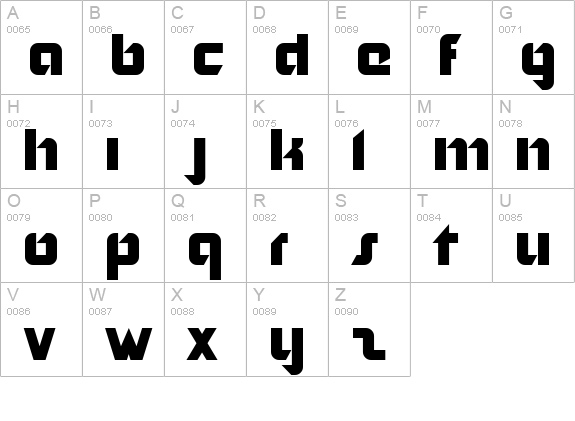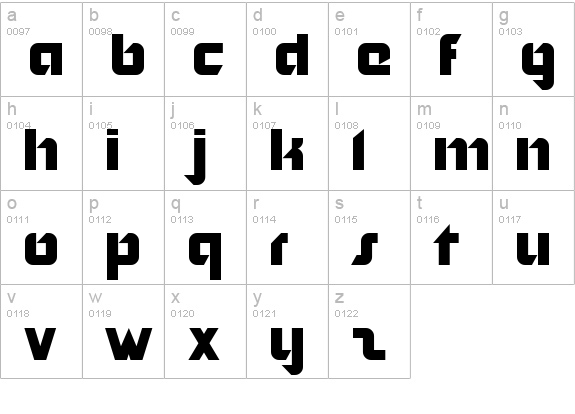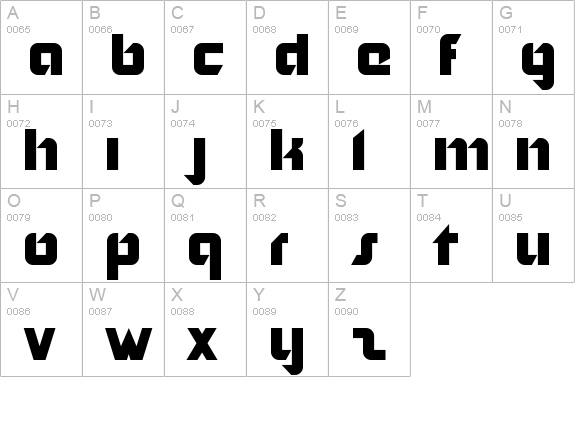
Nordic Font Details
The Nordic font is a beautifully crafted typeface inspired by the minimalist and elegant design aesthetic of Nordic countries. With its clean lines and stylish appearance, this font exudes a sense of modern sophistication and timeless charm. The Nordic font is perfect for a wide range of design projects, from branding and advertising to packaging and editorial design. Best of all, the Nordic font is available for free download at FontsMarket.com. Whether you're a professional designer looking for a versatile and high-quality font or a hobbyist seeking to add a touch of Scandinavian style to your creations, the Nordic font is sure to impress with its impeccable design and effortless versatility. Download it today and elevate your design projects with this stunning and unique typeface.